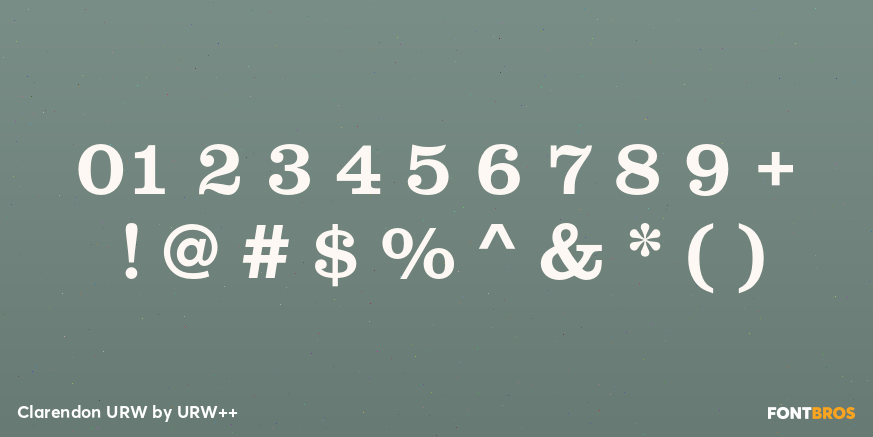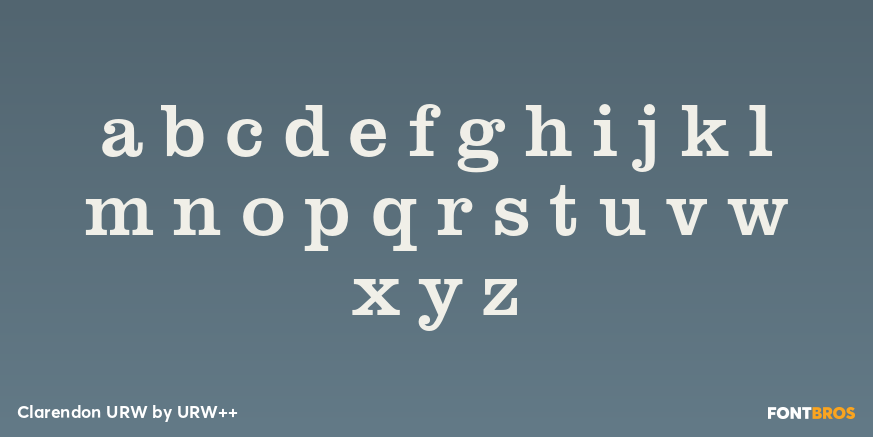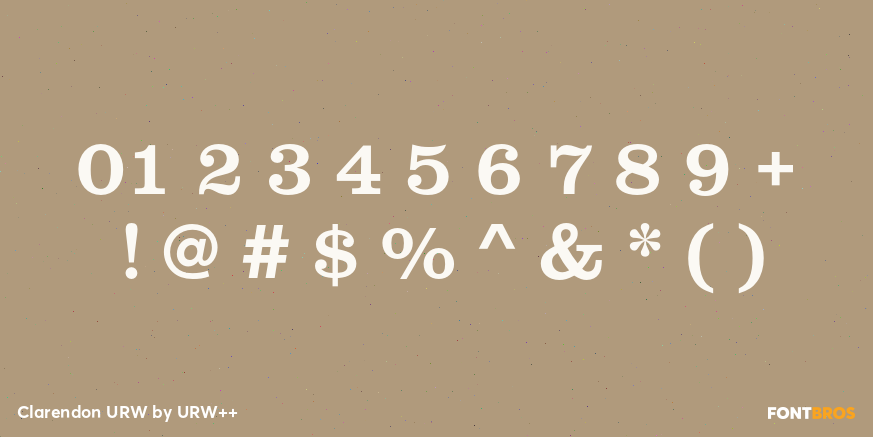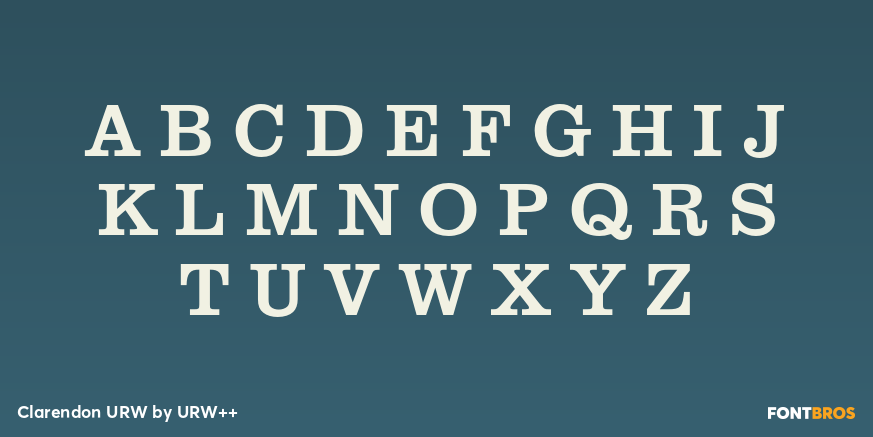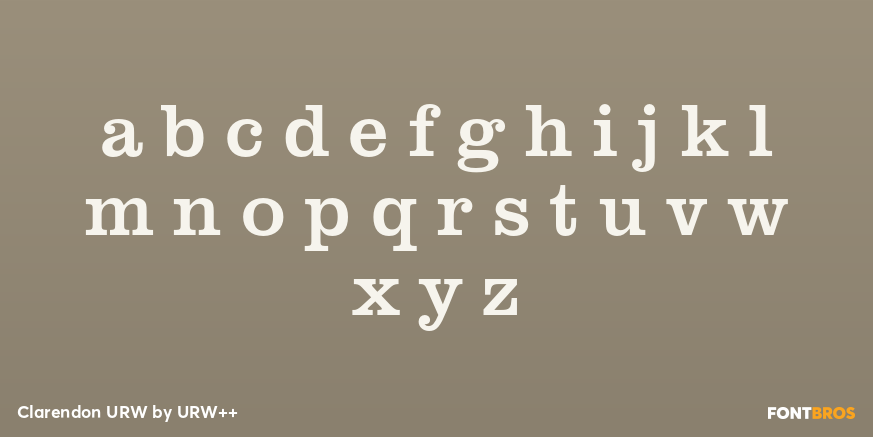
Clarendon URW
Font Family by URW++
Clarendon URW is a historical serif family with the sturdy, familiar presence that has made Clarendon-style lettering a lasting favorite. Its shapes feel solid and confident, balancing classic serif structure with a bold, approachable tone that stands out clearly in display settings.
With 7 styles included—Light, Regular, Oblique, Medium, Bold, Extra Bold, and Extra Bold Oblique—this family gives you a practical range for building contrast while keeping a consistent voice. It’s a strong choice for branding, packaging, posters, signage, and other projects that call for vintage character, readable impact, and a distinctly serif-driven look.
Published by URW++, this set is especially useful when you want historical flavor without sacrificing versatility. From lighter text accents to heavier headline treatments, it offers a dependable spectrum of weights for design work that needs both personality and structure.